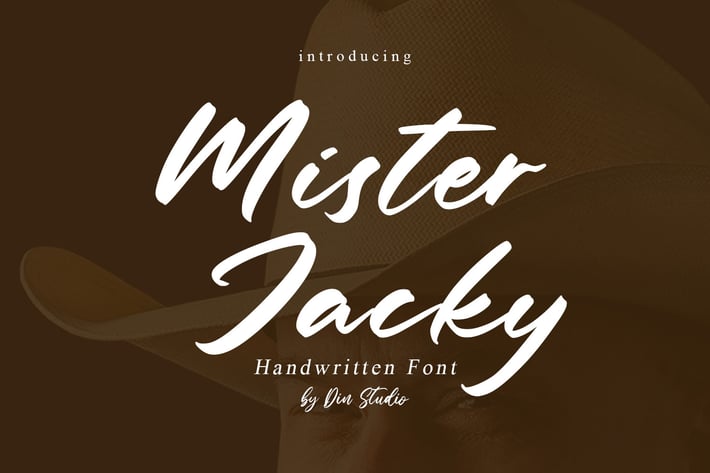
Mister Jacky-Handwritten Font
Mister Jacky is a modern handwritten font. It will make your design project more powerful and beautiful. The font is suitable for any project such as logos, branding and quotes.. Enjoy the Font!